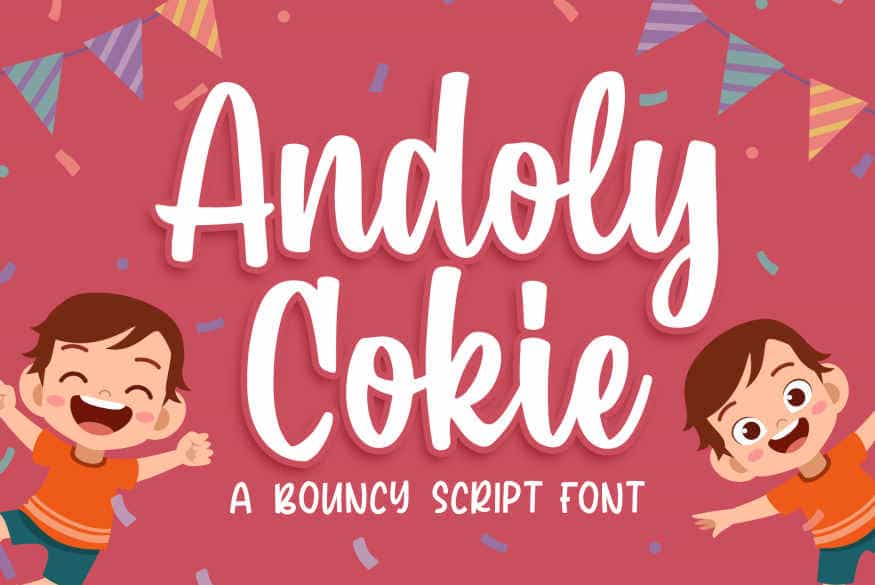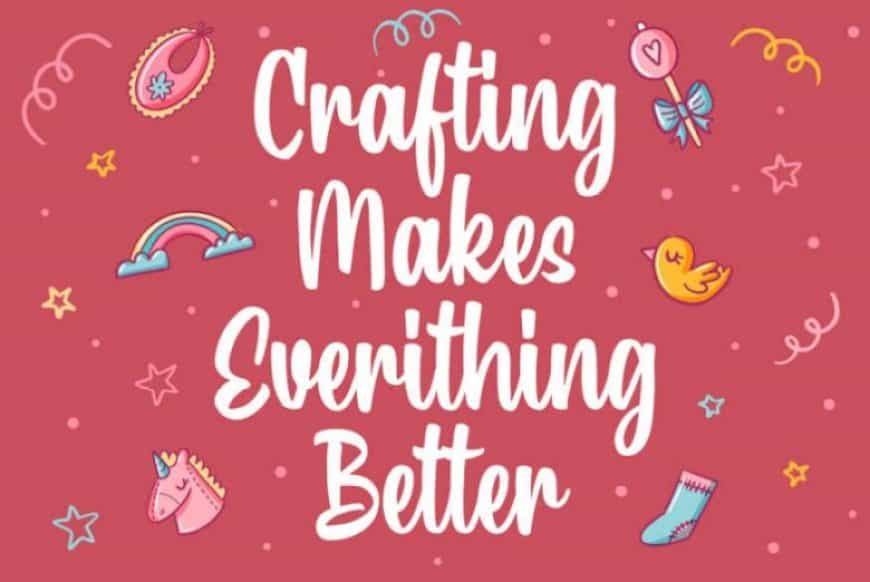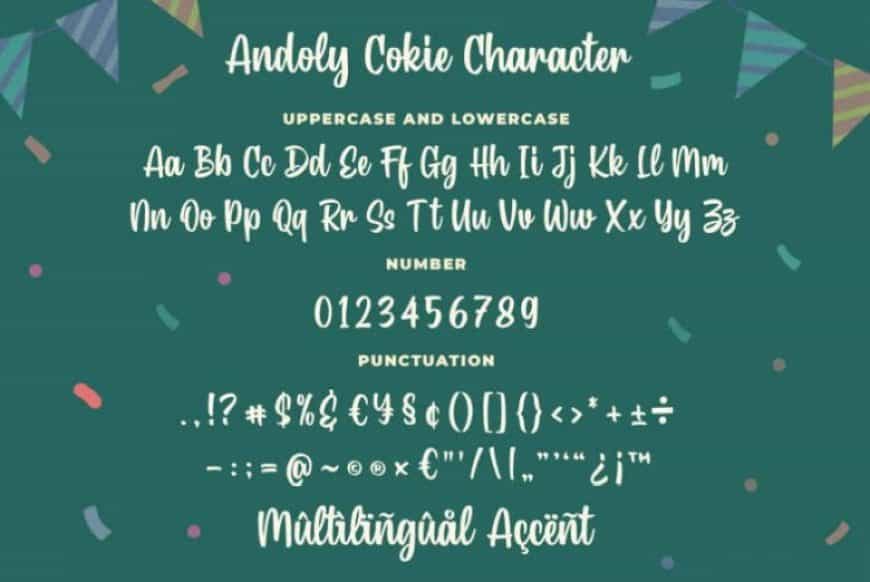
Andoly Cokie Script Font
Andoly is a handwritten font that has been created with the touch of elegance. Let it charm you with its genuine look and apply it to make the most beautiful wedding invitations, incredible stationary art, social media posts that will grab all eyes and cute greeting cards.